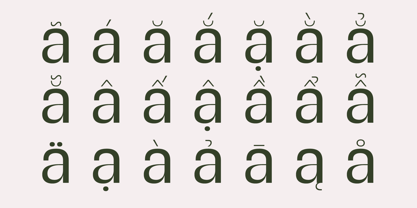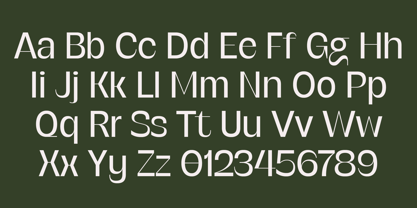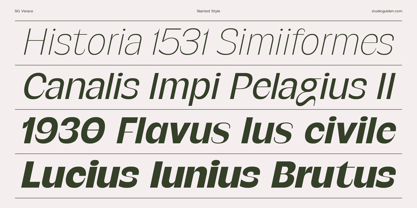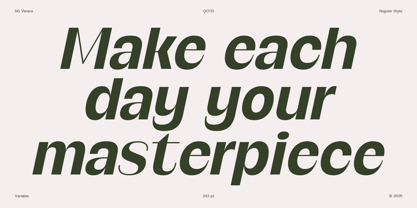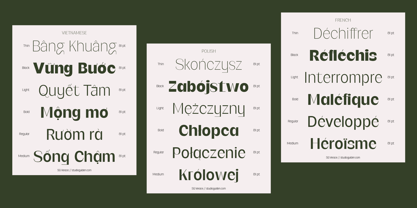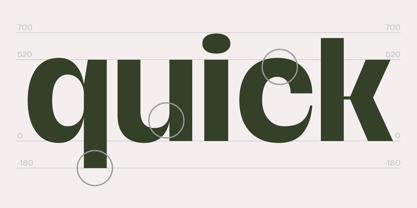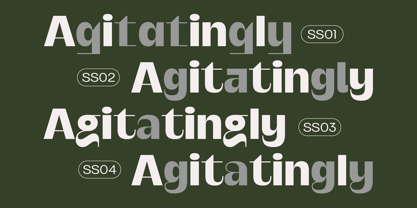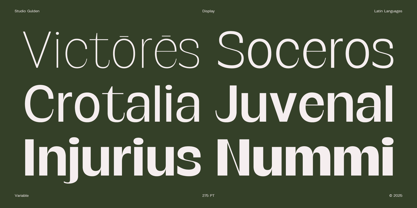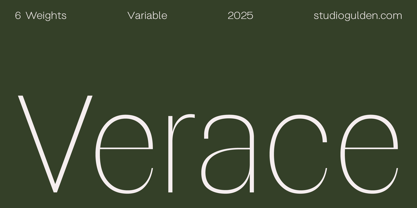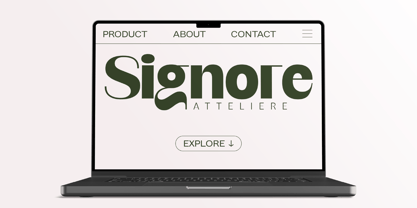
SG Verace
by Studio Gulden
The SG Verace Font Family was designed by Umar Al Farouq, Jodi El Ghazi, Febri Riansah and published by Studio Gulden. SG Verace contains 12 styles and family package options. More about this family
SG Verace delivers unparalleled clarity with a decisive, contemporary edge. It’s a sophisticated sans serif that breaks away from soft neutrality, injecting digital-first precision and sharp, architectural details into every character. This is the typeface for brands and creatives who refuse to be neutral, offering a unique voice that is both impeccably clean and full of confidence. The philosophy behind SG Verace is "precision with personality." It draws from the rational clarity of neo-grotesk typography but dares to be distinct. Its construction is defined by a tension between smooth, open curves and sharp, chiseled junctions. You can see this dynamic spirit in the details: the distinctive disconnected spur on the 'G', the blade-like tail of the 'Q', and the angular, confident joints on the 'K' and 'R' create a unique visual rhythm. This isn't a font that blends in; it establishes a mood of sophisticated, technical, and forward-thinking design. SG Verace is a versatile powerhouse designed for the discerning creative. It’s the perfect choice for branding specialists building identities for tech startups, architectural firms, or fashion labels that need a clean, assertive voice. For UI/UX designers, its high legibility and distinct character provide a refreshing alternative for app and web interfaces. In print, it excels in everything from sharp editorial headlines and data-rich infographics to minimalist poster designs and premium packaging. Complete Family: 12 total styles, featuring 6 weights from Light to Black, each with a corresponding Slanted style. Expansive Character Set: Over 600 glyphs, including a full range of punctuation, symbols, and unique stylistic alternates. Broad Language Support: Covers over 300+ Latin-based languages, ensuring global versatility. Pro-Grade Kerning: Meticulously kerned and spaced for flawless performance in both display and text sizes. Full OpenType Features: Packed with features for professional typographic control. Stop blending in. Define your next project with the sharp, sophisticated voice of SG Verace.
Designers: Umar Al Farouq, Jodi El Ghazi, Febri Riansah
Foundry: Studio Gulden